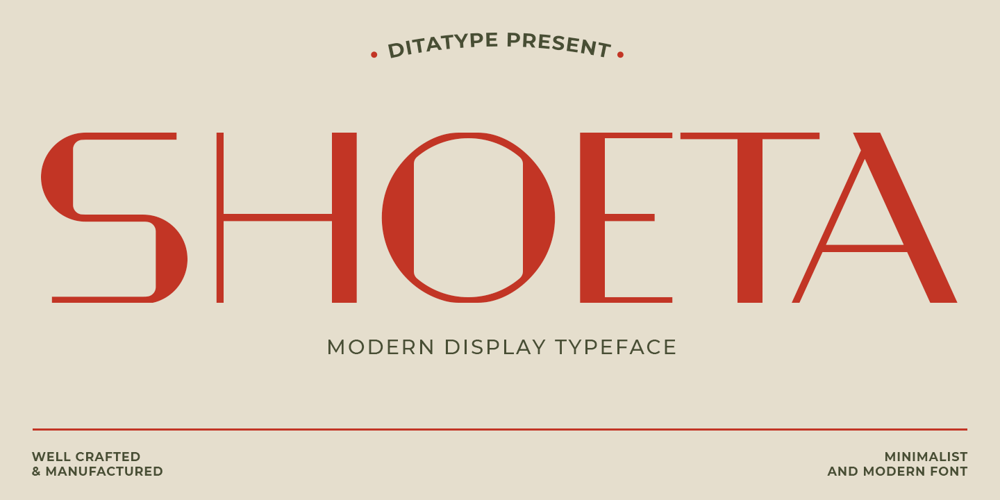
Shoeta Font Family was designed by Donis Miftahudin and published by Ditatype. Shoeta contains 1 styles and family package options. Introducing Shoeta, a modern display font designed in uppercase with a sleek, contemporary flair. The letter proportions are consistently balanced, creating a cohesive look, while the varying outline weights add a distinctive touch. This subtle contrast between uniformity and dynamic lines gives Shoeta a unique character. Shoeta effortlessly blends modern design with an eye-catching edge, ensuring your work stands out. In addition, enjoy the features here.Features: Multilingual Supports PUA Encoded Numerals and Punctuations Shoeta fits in logos, posters, flyers, branding materials, print media, editorial layouts, and many more designs. Find out more ways to use this font by taking a look at the font preview.Thanks for purchasing our fonts. Hopefully, you have a great time using our font. Feel free to contact us anytime for further information or when you have trouble with the font. Thanks a lot and happy designing.